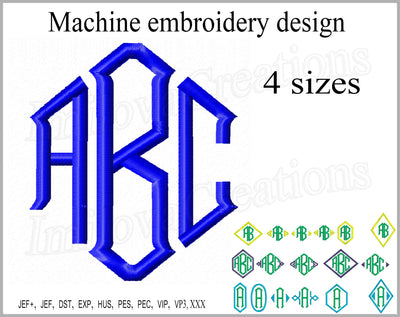
Monogram Font Machine embroidery design
Monogram Fonts For Embroidery. Monogram embroidery fonts (015)
In the set 26 of the left, Central and right of the letters and decorative elements. From the set you can make a variety of monograms.